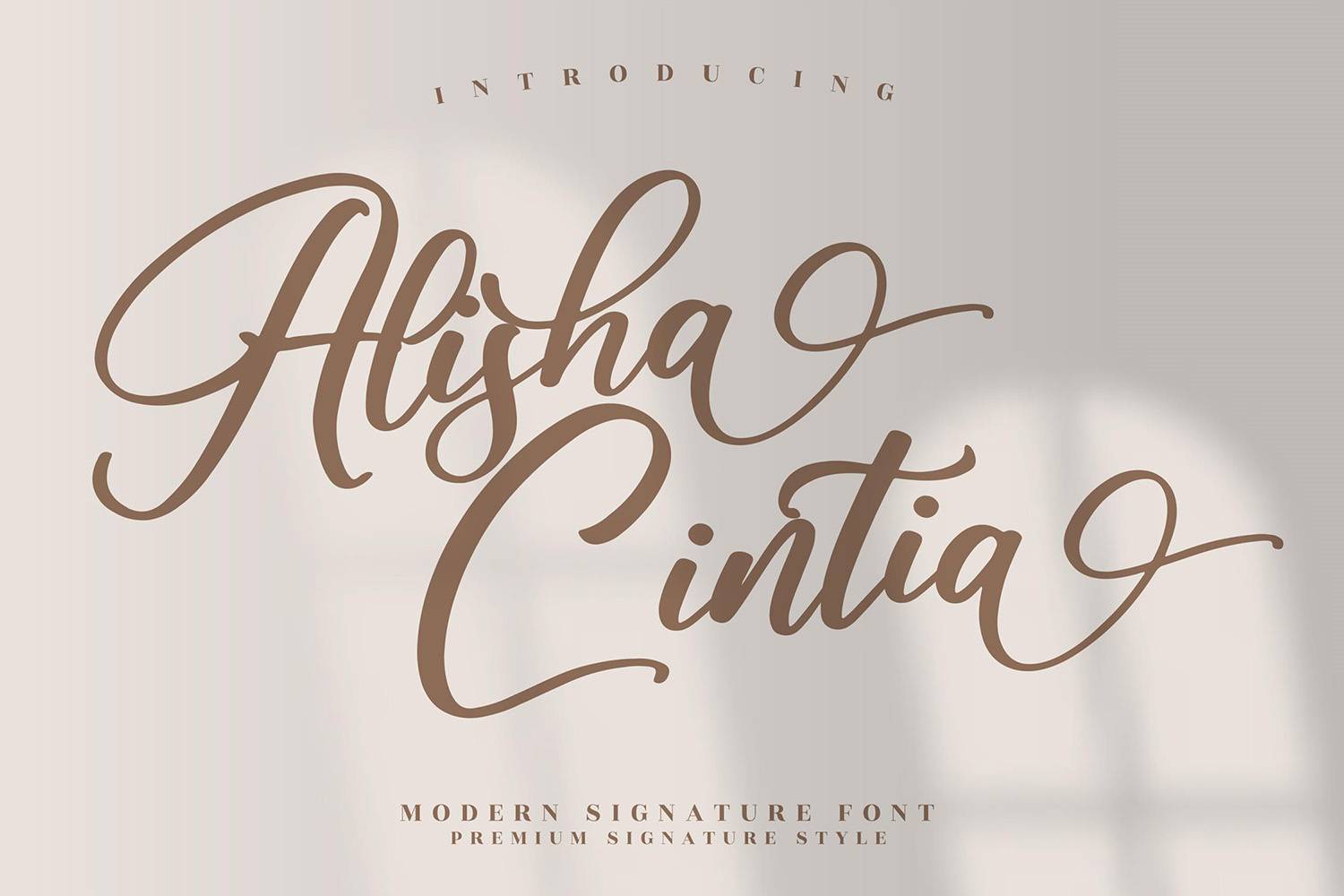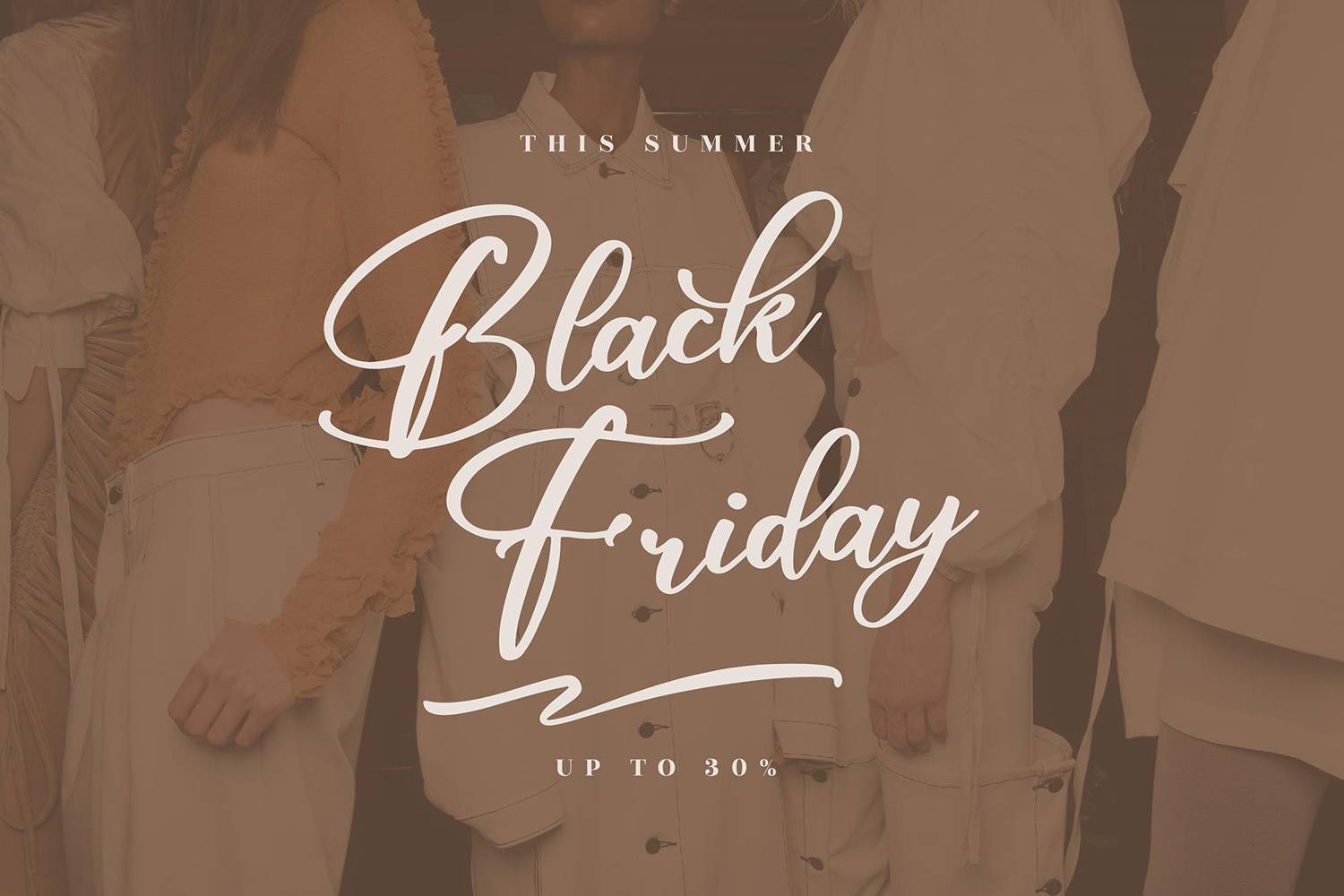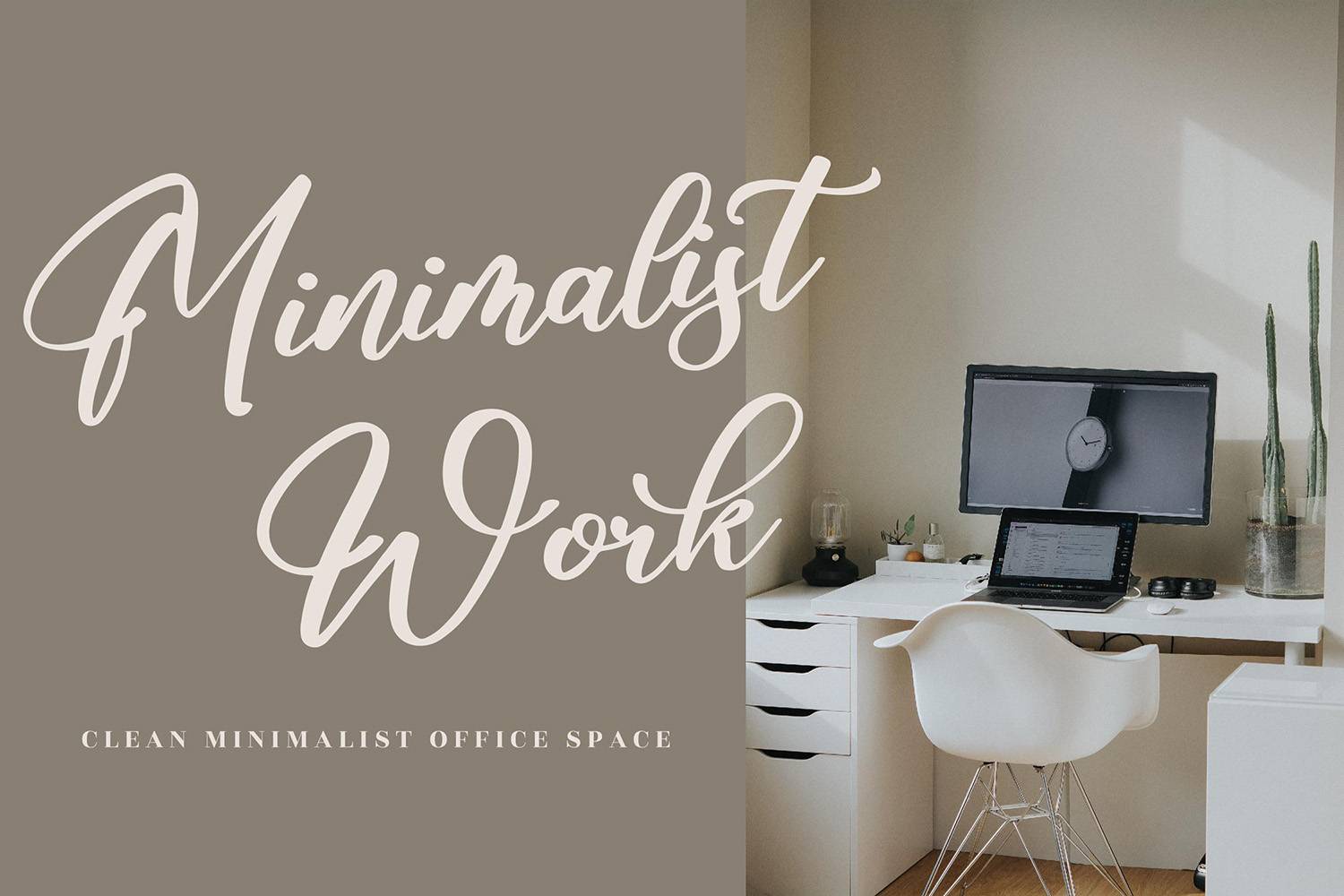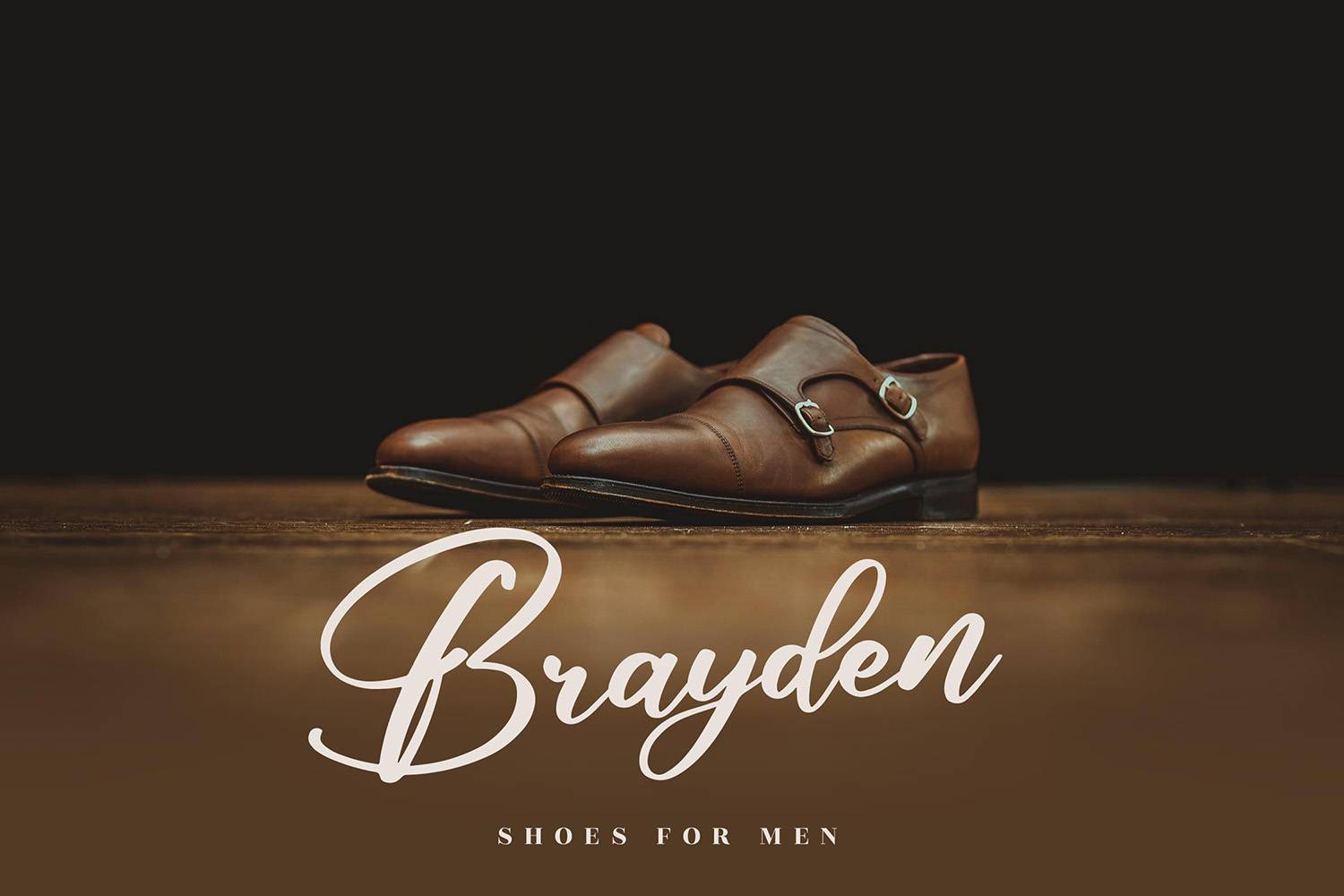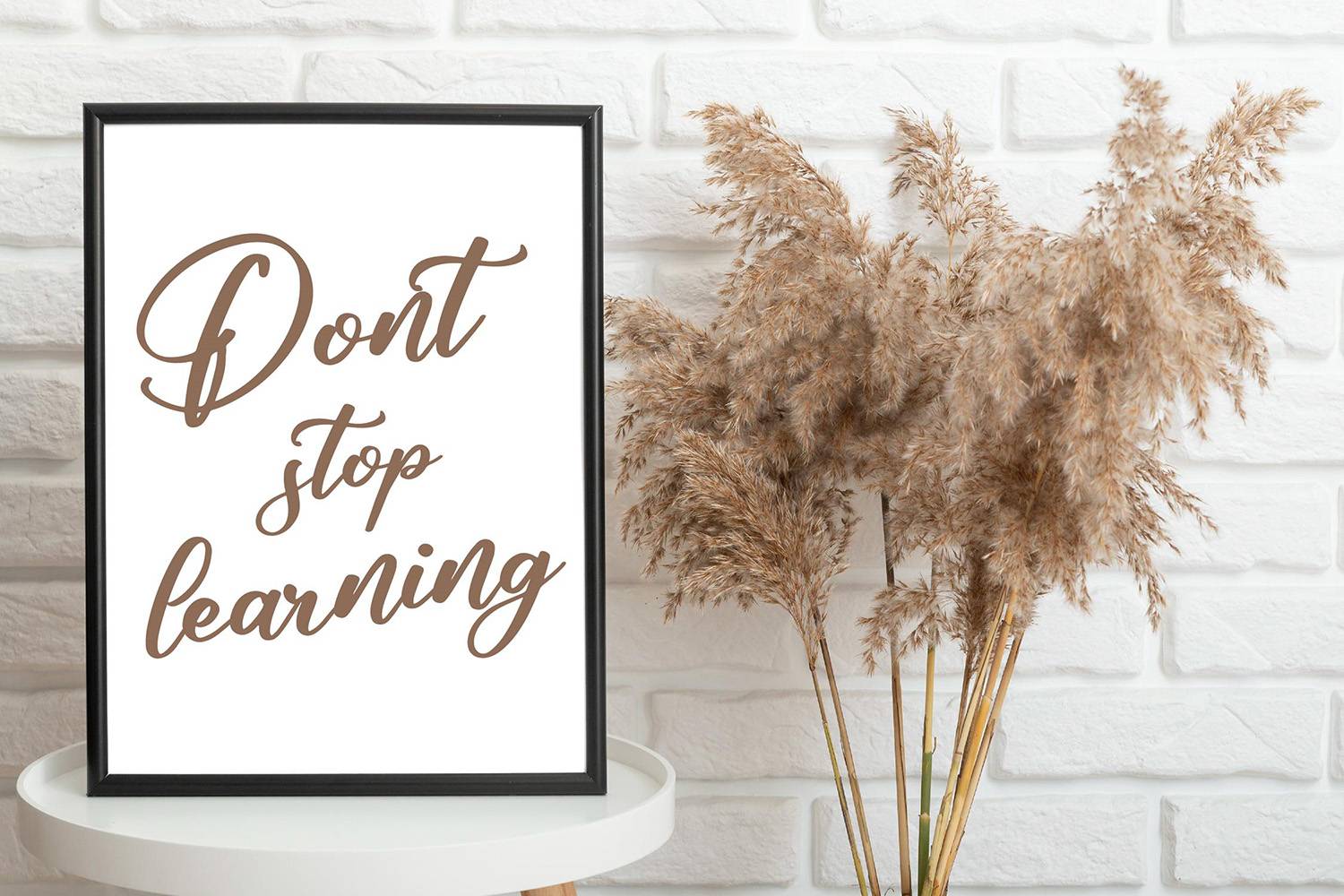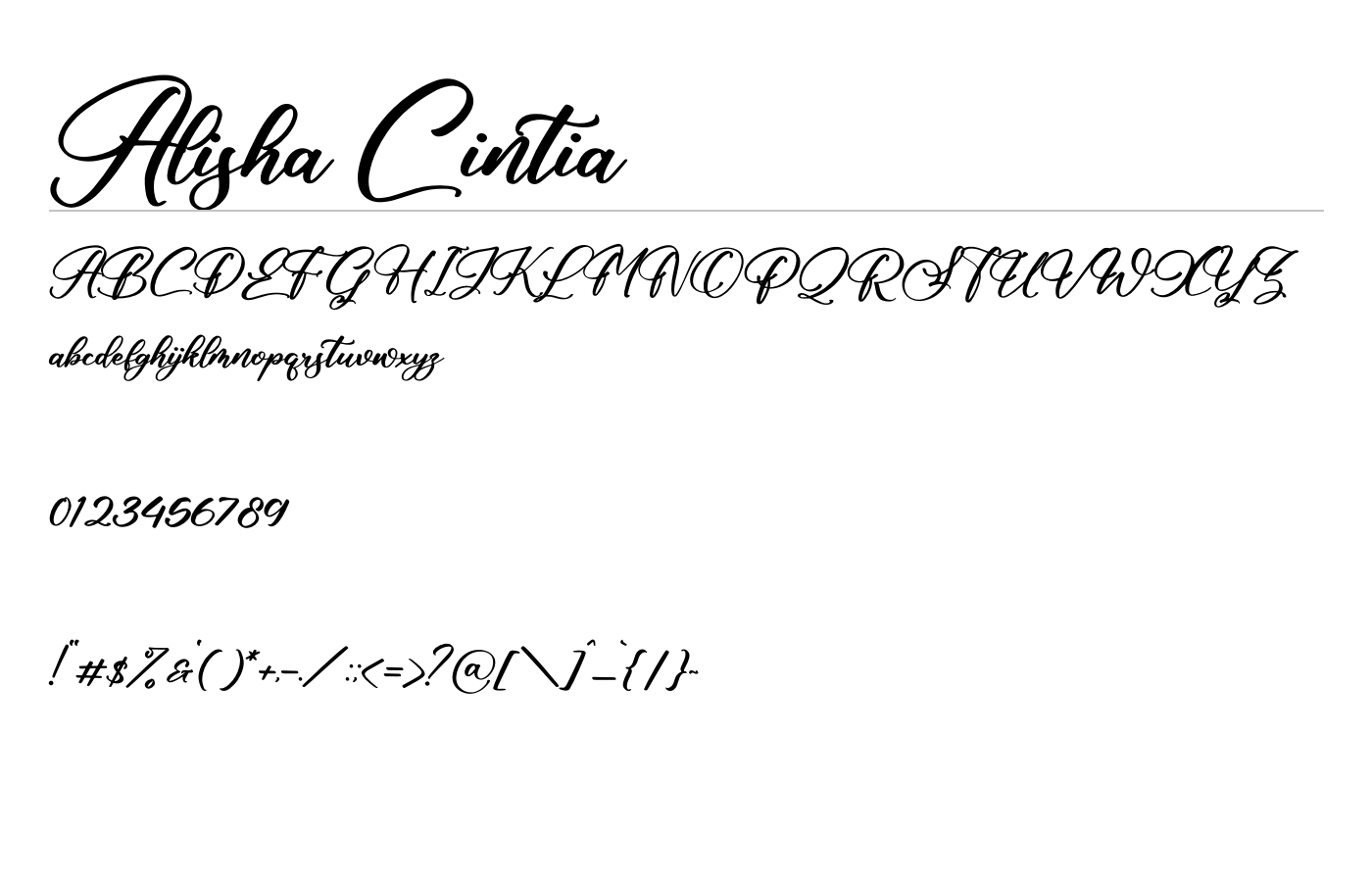
Alisha Cintia is an elegant script font with smooth, flowing strokes and a refined handwritten style. Its moderate contrast and graceful letterforms give it a sophisticated yet approachable feel, making it ideal for invitations, branding, and designs that need a personal, stylish touch. This font works beautifully in projects that seek to convey warmth and charm, such as wedding materials, fashion labels, and luxury packaging.
Alisha Cintia Font